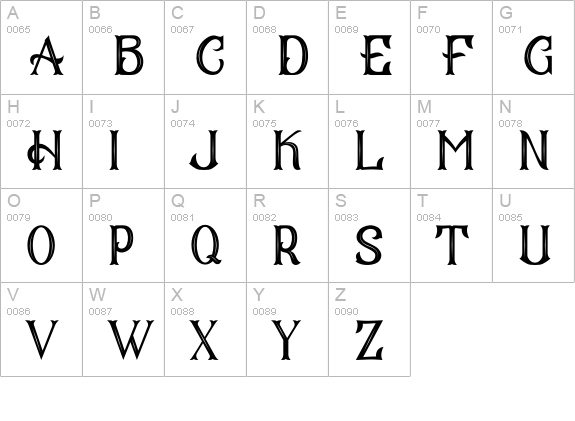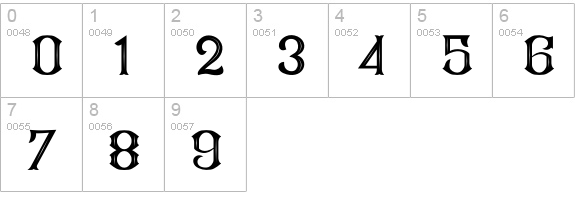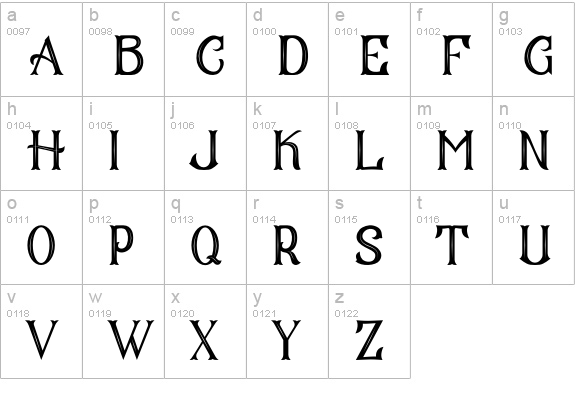
CS Mulan Inner font is a stunning display typeface that exudes elegance and sophistication. With its intricate details and unique design, this font is perfect for adding a touch of class to any project. The delicate curves and sharp lines create a harmonious balance that is both visually appealing and easy to read.